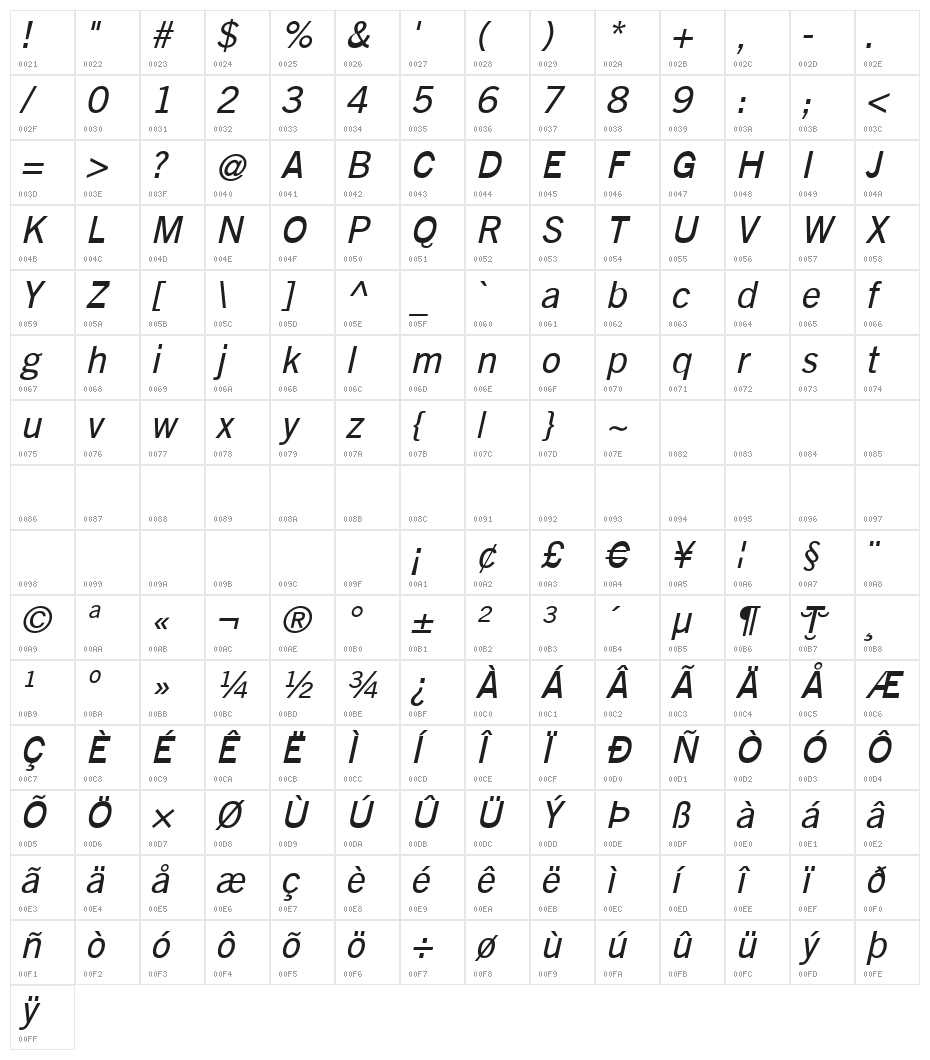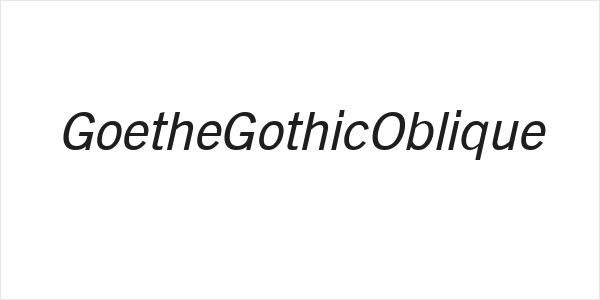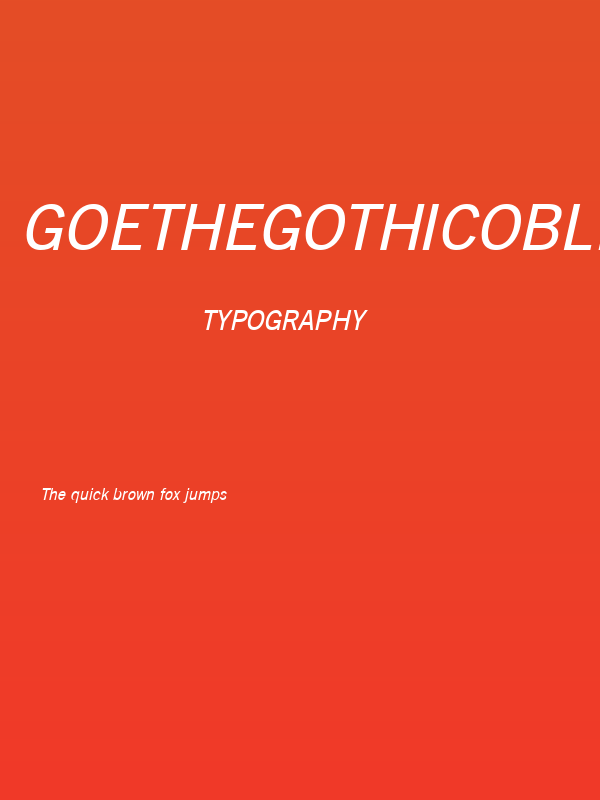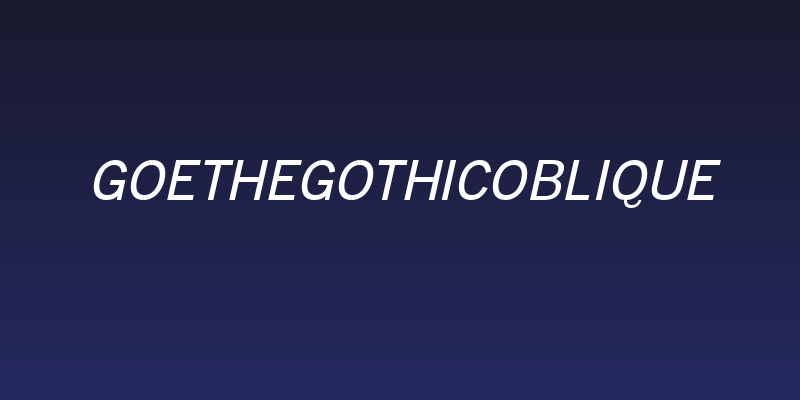
GoetheGothicOblique Font
GoetheGothicOblique Description
This font features a sleek, modern design with an oblique style that adds a dynamic and forward-leaning appearance. The characters are clean and well-defined, with a consistent stroke width that maintains readability across various sizes. The uppercase and lowercase letters are proportionate, and the numerals are clear and distinct. Special characters are included, enhancing its versatility for different types of content. The overall look is professional and suitable for contemporary design projects.
| Proposed Projects | Ideal for branding, advertising, and editorial design where a modern and dynamic look is desired. |